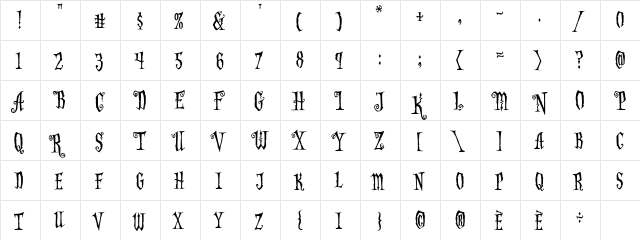
CCAltogetherOoky Regular Font Preview
CCAltogetherOoky Regular
Design Context for CCAltogetherOoky Typeface
CCAltogetherOoky is a composed and adaptable typeface that performs quietly and consistently across a wide range of design contexts.